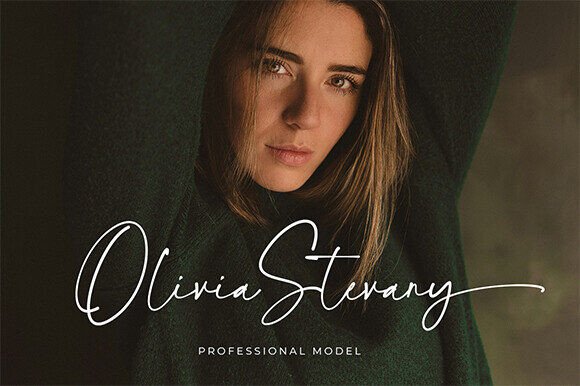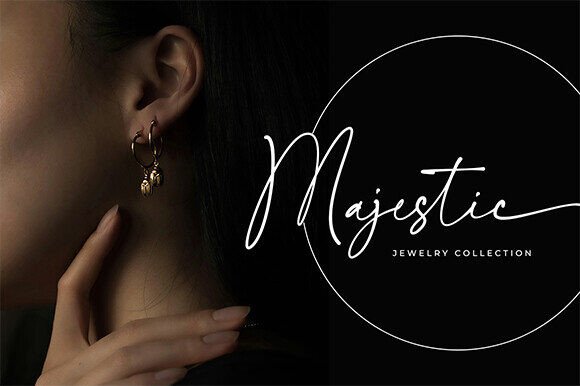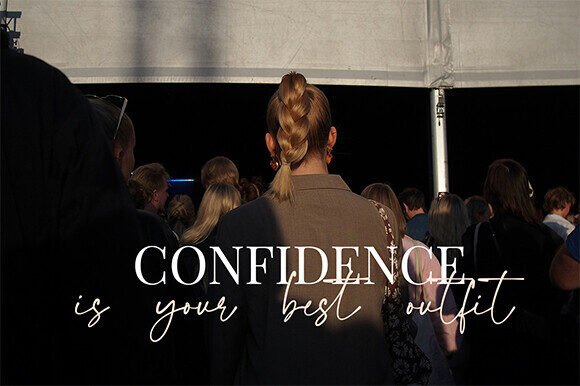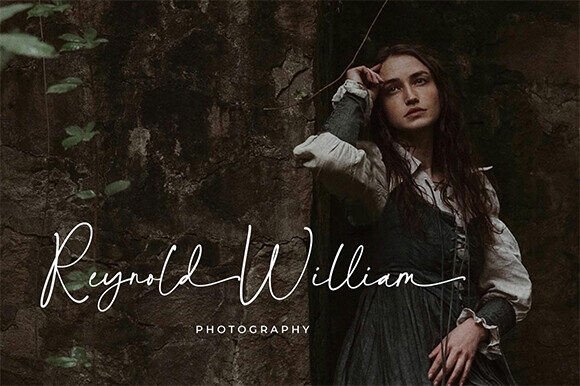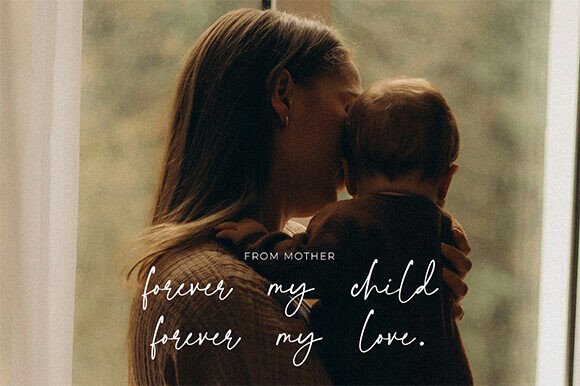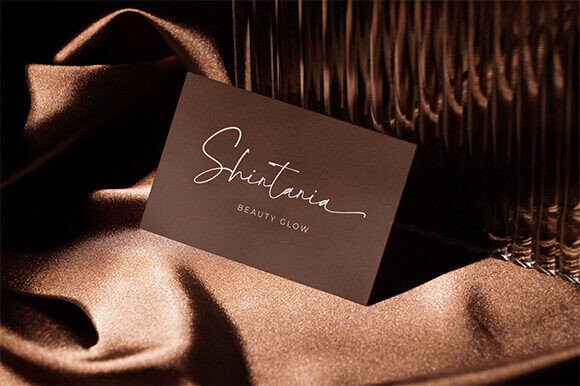
The Art of Beautiful Writing: Introducing Calestina Font
There’s something special about putting pen to paper and watching your thoughts flow onto the page. For many creatives, the act of writing is a therapeutic escape from the digital world, allowing them to tap into their imagination and bring ideas to life. As we delve into the world of typography, we’re reminded that the right font can elevate our message, evoke emotions, and create a lasting impression.
Calestina Font is a beautiful, handwritten typeface designed to capture the essence of natural penmanship with a touch of elegance. With its smooth curves and well-balanced strokes, this font exudes warmth, charm, and authenticity, making it a perfect choice for various creative projects. For designers, Calestina Font is a valuable asset, offering a unique blend of sophistication and approachability that’s sure to captivate audiences and leave a lasting impression.
Calestina Font Key Features
- Font Size: 1,200 glyphs, including Latin, Greek, Cyrillic, and other languages
- Unique Characteristics: Elegant, cursive script with a touch of classic sophistication, ideal for invitations, wedding stationery, and other formal events
- Language Support: Multilingual support, including Latin, Greek, Cyrillic, and other languages
- Font Weight: Multiple weights available, including Regular, Italic, Bold, and Bold Italic
Calestina Font Review
Overall, I think Calestina Font is a beautiful, elegant script font that can be used for various design purposes. It has a unique touch that can add sophistication to any project.
- Highly customizable: Calestina Font offers a wide range of font styles and sizes, making it suitable for various design applications.
- Beautiful script: The font’s design is intricate and detailed, making it perfect for creating invitations, posters, and other promotional materials.
- Easy to read: Despite its ornate design, Calestina Font is relatively easy to read, thanks to its clear letterforms and spacing.
- Not ideal for small text: Due to its intricate design, Calestina Font may not be the best choice for small text, as it can be difficult to read.
- Limited font weights: While Calestina Font offers several font styles, the available font weights are somewhat limited, which may not be suitable for all design projects.
Overall, I think Calestina Font is a great choice for designers who want to add a touch of elegance and sophistication to their projects. However, it’s essential to consider its limitations and use it in the right context.
Tip: Use Calestina Font for creative headings and titles to add a touch of elegance to your designs.
Tip: Use Calestina Font for typography-based art and designs to create a unique and stylish look.
Tip: Use Calestina Font for presentations and documents that require a touch of sophistication and elegance.
Calestina Font is ideal for:
- Brand logos and identities.
- Typography-based art and designs.
- Formal presentations and documents.
Remember to adjust the font size and style according to your design needs to get the most out of Calestina Font.
Alternatives to Calestina Font
Playfair Display is an elegant, high-end serif font suitable for luxury branding and high-end advertising. It features intricate details and ornate flourishes, making it perfect for creating a sense of sophistication and refinement.
Comparison to Calestina Font: While Calestina Font is also a serif font, Playfair Display is more ornate and elaborate, making it better suited for high-end applications. Calestina Font is more versatile and can be used in a wider range of contexts.
Didot is a classic, elegant serif font that is perfect for creating a sense of sophistication and refinement. It is commonly used in high-end branding and advertising, as well as in book and magazine design.
Comparison to Calestina Font: Didot is more classic and traditional than Calestina Font, which has a more modern and vintage feel. Didot is also more formal and elegant, making it better suited for high-end applications.
Montserrat is a modern sans-serif font that is perfect for creating a clean and minimalist aesthetic. It is commonly used in urban and industrial design, as well as in digital design and advertising.
Q: Can I use the Calestina Font in combination with other fonts, and what are the recommended font pairing options?
Yes, the Calestina Font can be paired with other fonts to create visually appealing typography. We recommend pairing Calestina with clean sans-serif fonts like Open Sans or Lato for a modern and minimalist look. Alternatively, pairing Calestina with serif fonts like Georgia or Merriweather can create